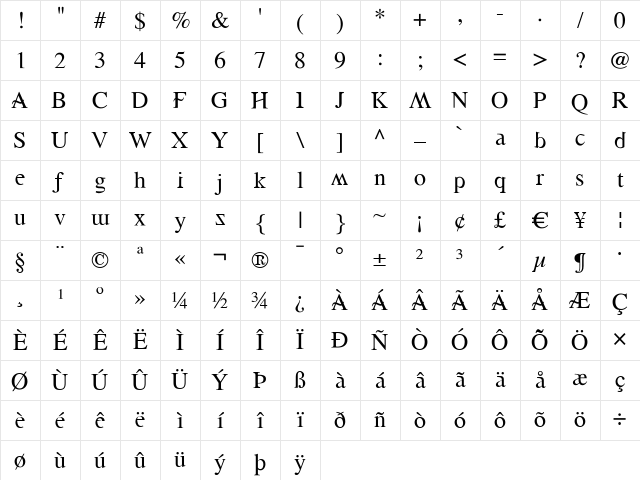
Zwiebelfisch Regular
Design Context for Zwiebelfisch
Zwiebelfisch is a composed and adaptable typeface that performs quietly and consistently across a wide range of design contexts.
Pro Tip: Use Zwiebelfisch in both headline and body roles to test its range before committing to a single application.